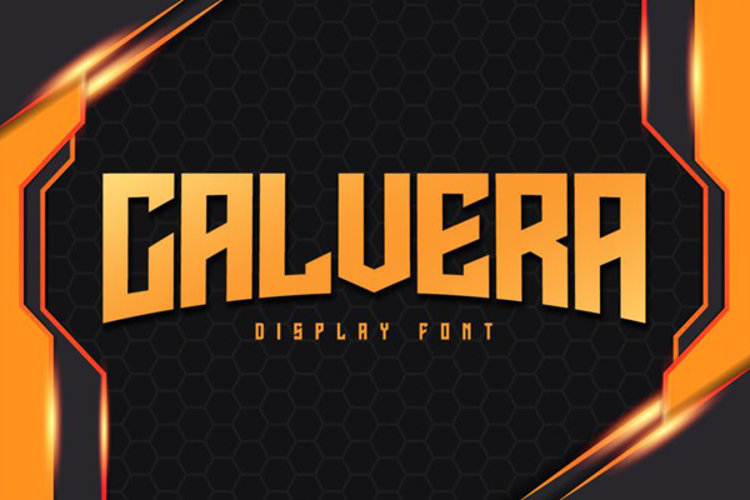
Calvera Font
Product Description :
Calvera, a modern e-sport font made for any professional project brandings which is best used for logos, brandings, and quotes. Every letter has a unique and beautiful touch.